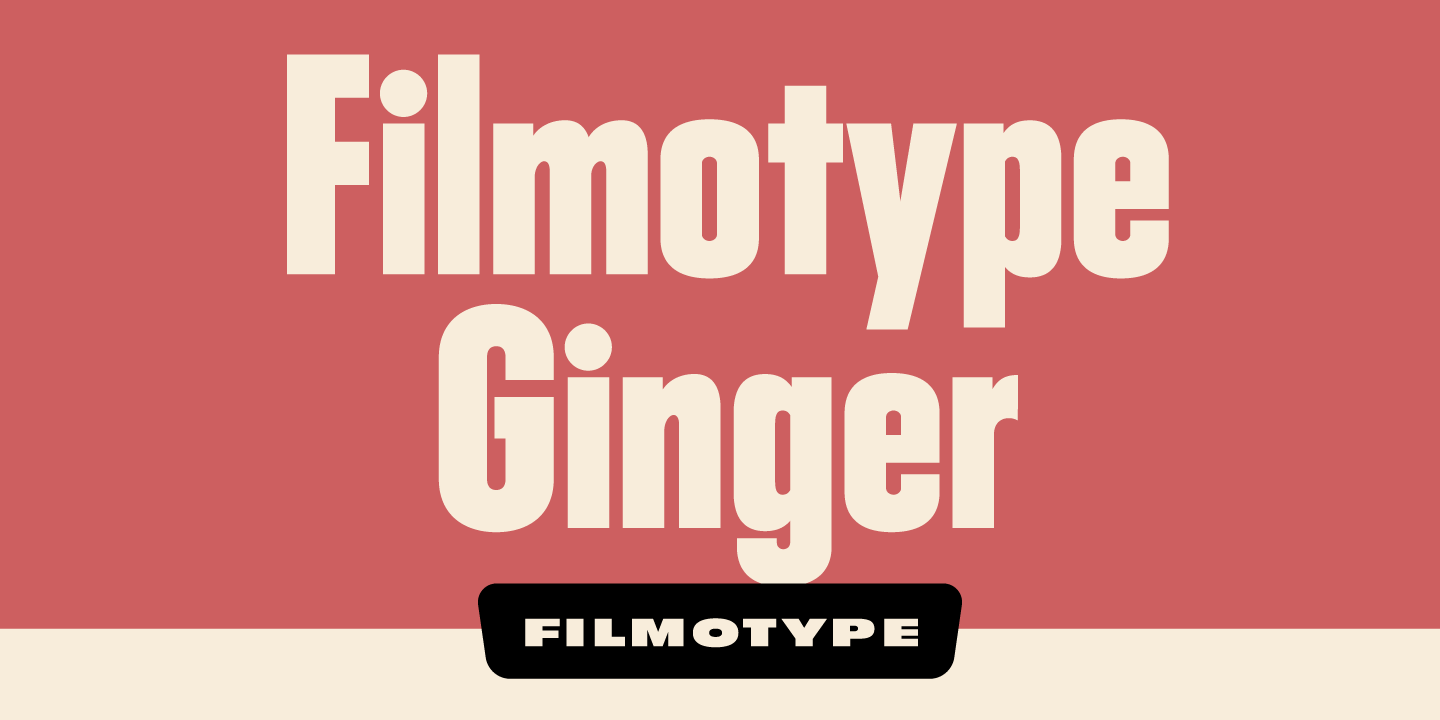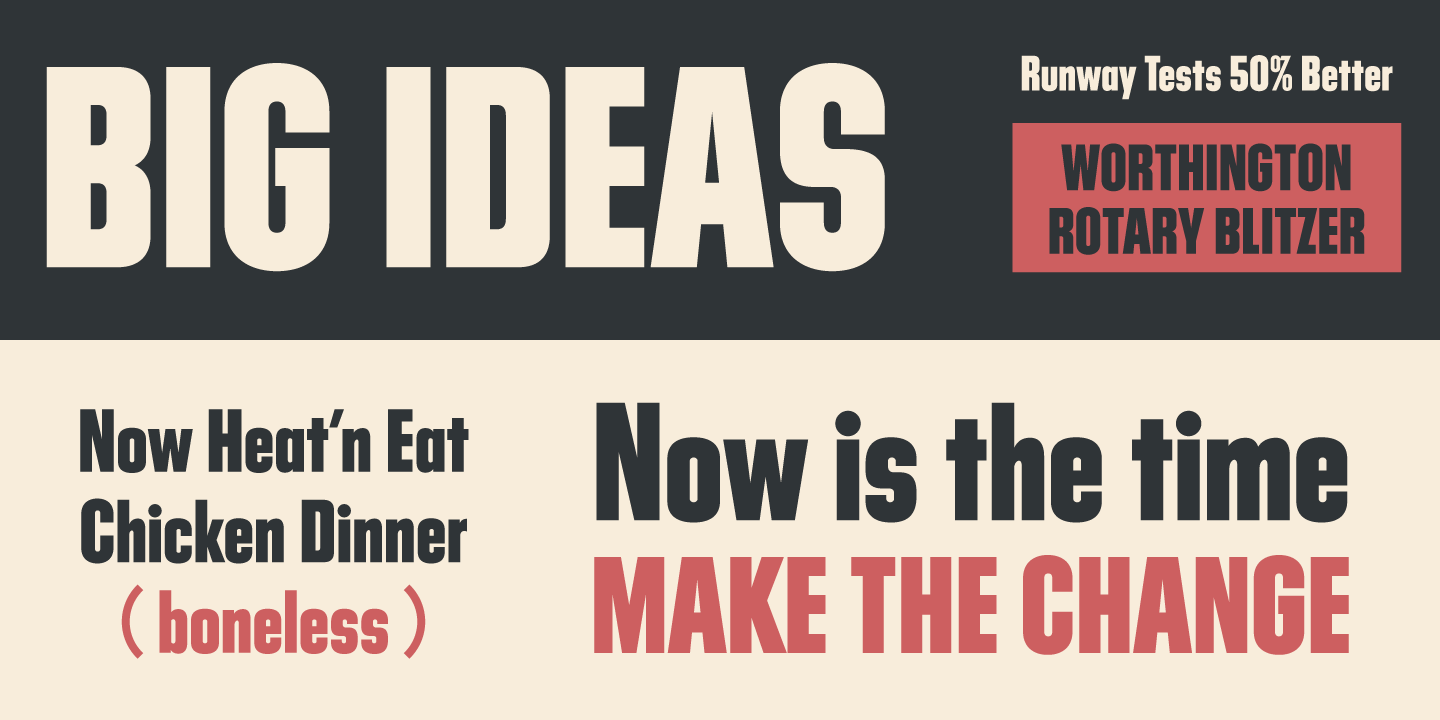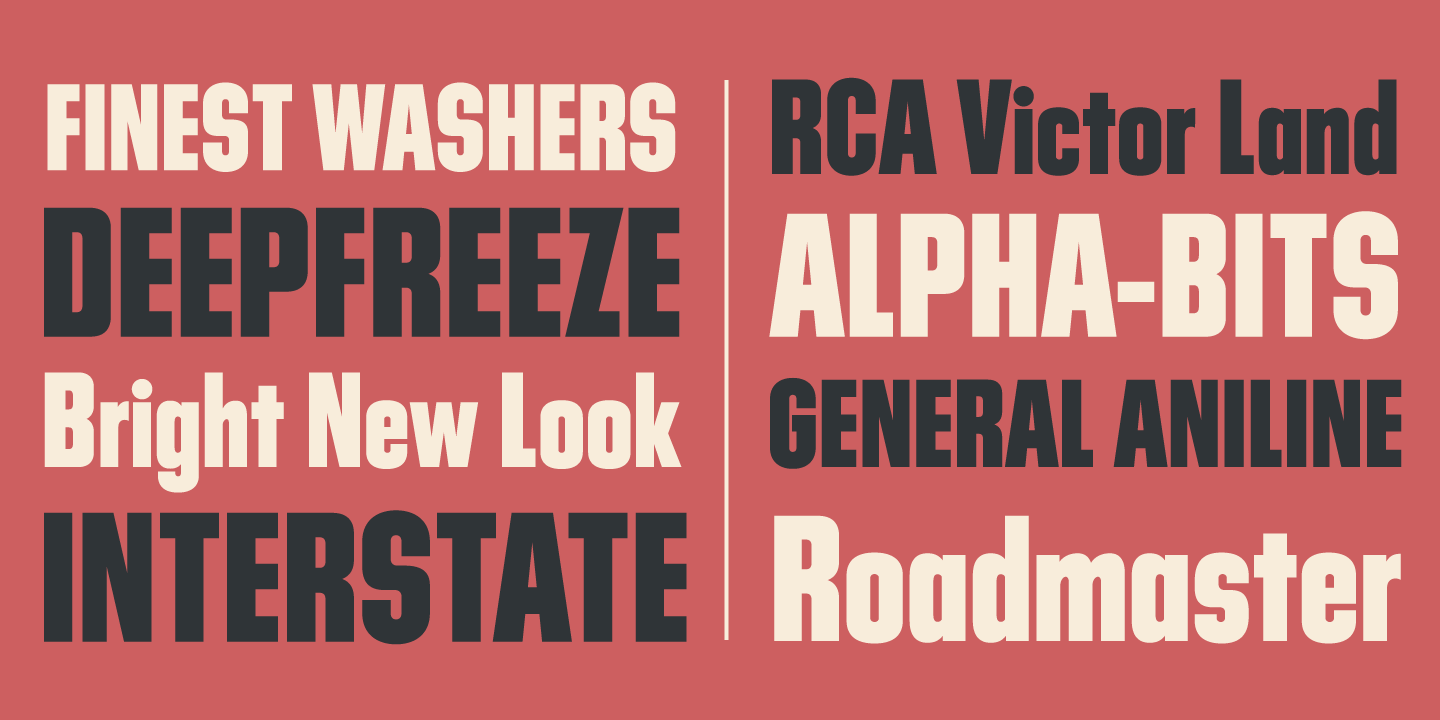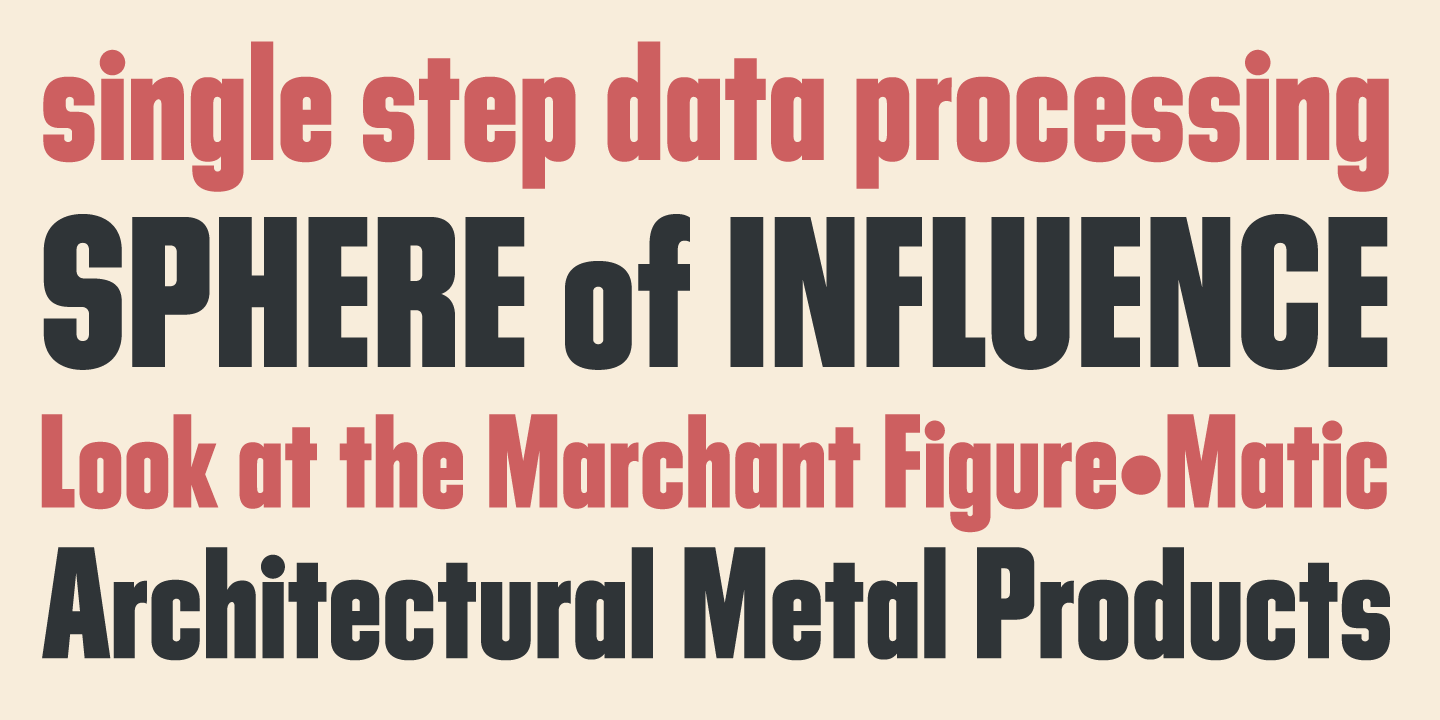
Filmotype Ginger
Initially designed in the early-to-mid 1950s, Filmotype Giant is part of a larger group of condensed sans serifs offered by Filmotype at the demand of its customers based on their versatility, legibility, and timeless aesthetic.
Initially offered in the late 1960s, Filmotype Escort was released nearly 15 years after the introduction of Filmotype Giant at the request of Filmotype customers unable to oblique the Filmotype Giant font on their Filmotype machines.
Remastered and expanded with exacting precision from the original filmstrips, both Filmotype Escort and Filmotype Giant includes a full international character complement, automatic fractionals, ordinals, and a suite of alternates in dynamic OpenType format.